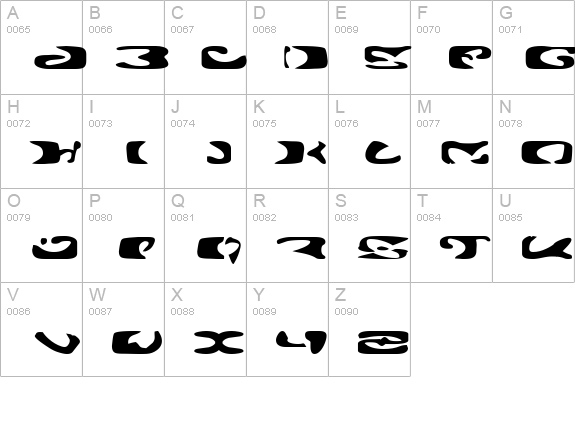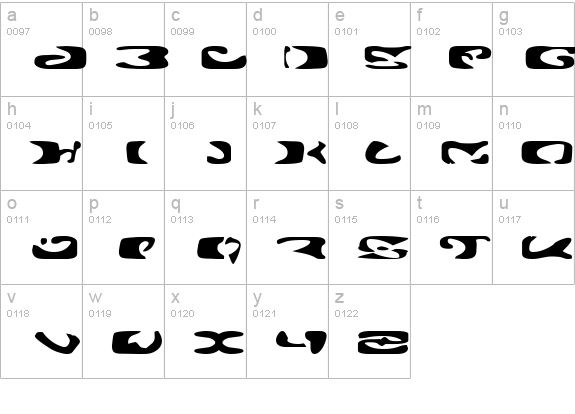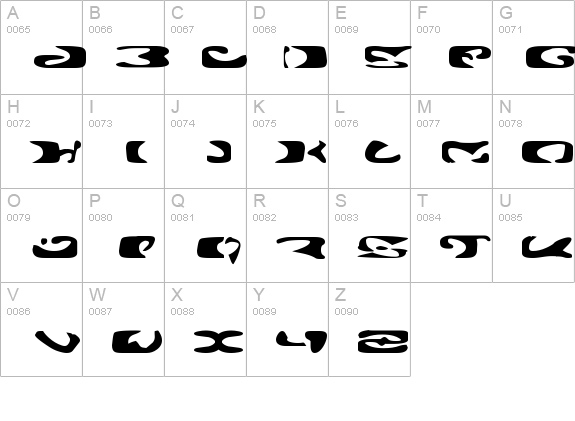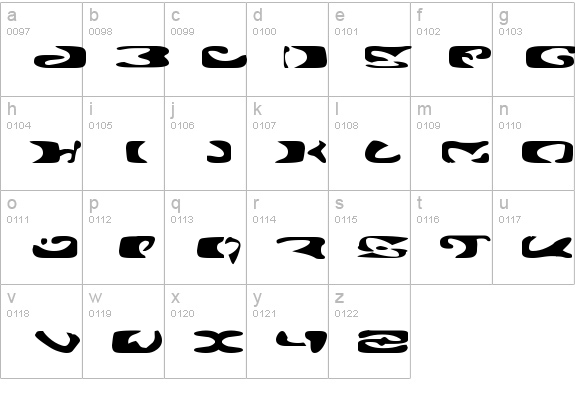
Alien Ghost 2 font is a captivating and mysterious typeface that embodies an otherworldly essence with its futuristic design and hauntingly beautiful glyphs. This unique font is perfect for adding a touch of intrigue and sci-fi flair to your projects, whether you're creating a poster for a space-themed event or designing a logo for a tech company. What's even more exciting is that Alien Ghost 2 font is completely free to download at FontsMarket.com, allowing you to unleash your creativity without any cost barriers. With its bold and distinctive characters, this font will surely make a statement and leave a lasting impression on anyone who sees it. Don't miss out on the opportunity to enhance your designs with the enigmatic charm of Alien Ghost 2 font. Download it for free today and see where your imagination takes you!